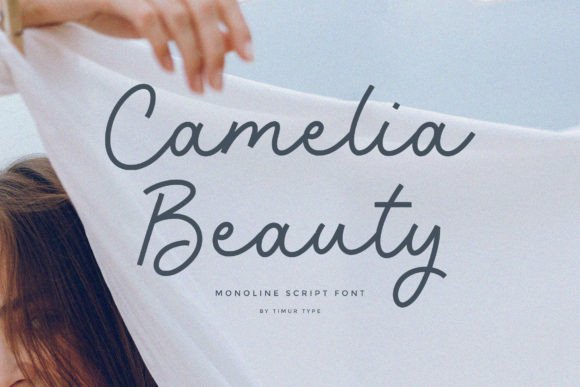
Introducing Camelia Beauty Font: Elevate Your Designs with Elegance
When it comes to creating visually stunning designs, the right font can make all the difference. If you’re looking for a stylish and elegant choice to elevate your projects, look no further than the Camelia Beauty Font. This monoline script font is inspired by the classic Latin script and features smooth, flowing lines that exude sophistication.
Key Features of Camelia Beauty Font
- Monoline Script Font: Camelia Beauty is a monoline script font, characterized by its consistent stroke weight. This feature gives the font a sense of harmony and balance, making it perfect for a wide range of design projects.
- Inspired by Latin Script: The font’s design is rooted in the classic Latin script, which provides a sense of timelessness and elegance. The smooth, flowing lines of Camelia Beauty are reminiscent of traditional calligraphy, but with a modern twist.
- Smooth and Flowing Lines: One of the standout features of Camelia Beauty is its smooth and flowing lines. The font’s curves and swashes are carefully crafted to create a sense of movement and fluidity, making it perfect for designs that require a touch of sophistication.
- Balanced and Harmonious Appearance: The consistent stroke weight of Camelia Beauty ensures that each letter maintains a balanced and harmonious appearance. This makes the font easy to read and use in a variety of design contexts, from luxury branding to elegant stationery.
Design Applications for Camelia Beauty Font
Camelia Beauty is a versatile font that can be used in a wide range of design projects. Here are some ideas to get you started:
- Luxury Branding: Use Camelia Beauty to create a luxurious and sophisticated brand identity. The font’s elegant lines and smooth curves make it perfect for high-end brands that want to convey a sense of refinement and style.
- Elegant Stationery: Add a touch of elegance to your stationery designs with Camelia Beauty. The font’s flowing lines and harmonious appearance make it perfect for wedding invitations, business cards, and other formal correspondence.
- Packaging Design: Camelia Beauty is also well-suited for packaging design. Use the font to create eye-catching labels and packaging that stands out on store shelves.
- Digital Design: The font’s smooth lines and elegant curves make it perfect for digital designs, such as website headers, social media graphics, and email marketing campaigns.
Typography Tips for Using Camelia Beauty Font
To get the most out of Camelia Beauty, here are some typography tips to keep in mind:
- Use it as a Headline Font: Camelia Beauty is perfect for headlines and titles. Use it to create eye-catching headings that draw attention and add a touch of elegance to your designs.
- Pair it with a Sans-Serif Font: For body text, pair Camelia Beauty with a sans-serif font to create a nice contrast. This will help to create a clear visual hierarchy and make your designs more readable.
- Experiment with Font Sizes: Don’t be afraid to experiment with different font sizes to create visual interest. Camelia Beauty looks great in large font sizes, but it can also be used in smaller sizes to create elegant and sophisticated text.
- Pay Attention to Line Spacing: Make sure to pay attention to line spacing when using Camelia Beauty. The font’s flowing lines can sometimes overlap, so it’s essential to adjust the line spacing to create a clear and readable design.
The Benefits of Using Camelia Beauty Font
So why choose Camelia Beauty for your design projects? Here are some benefits of using this elegant font:
- Elegance and Sophistication: Camelia Beauty adds a touch of elegance and sophistication to any design. Its smooth lines and flowing curves create a sense of refinement and style.
- Versatility: The font’s versatility makes it perfect for a wide range of design projects. From luxury branding to elegant stationery, Camelia Beauty can be used in many different contexts.
- Easy to Read: Despite its elegant appearance, Camelia Beauty is easy to read and use in a variety of design contexts. Its consistent stroke weight and harmonious appearance make it perfect for body text and headlines.
- Unique and Memorable: Camelia Beauty is a unique and memorable font that will help your designs stand out. Its elegant lines and smooth curves create a sense of distinction and style.
In conclusion, Camelia Beauty Font is a stylish and elegant choice for any design project. Its smooth lines, flowing curves, and consistent stroke weight make it perfect for a wide range of applications, from luxury branding to elegant stationery. With its versatility, ease of use, and unique appearance, Camelia Beauty is a font that will elevate your designs and add a touch of sophistication.